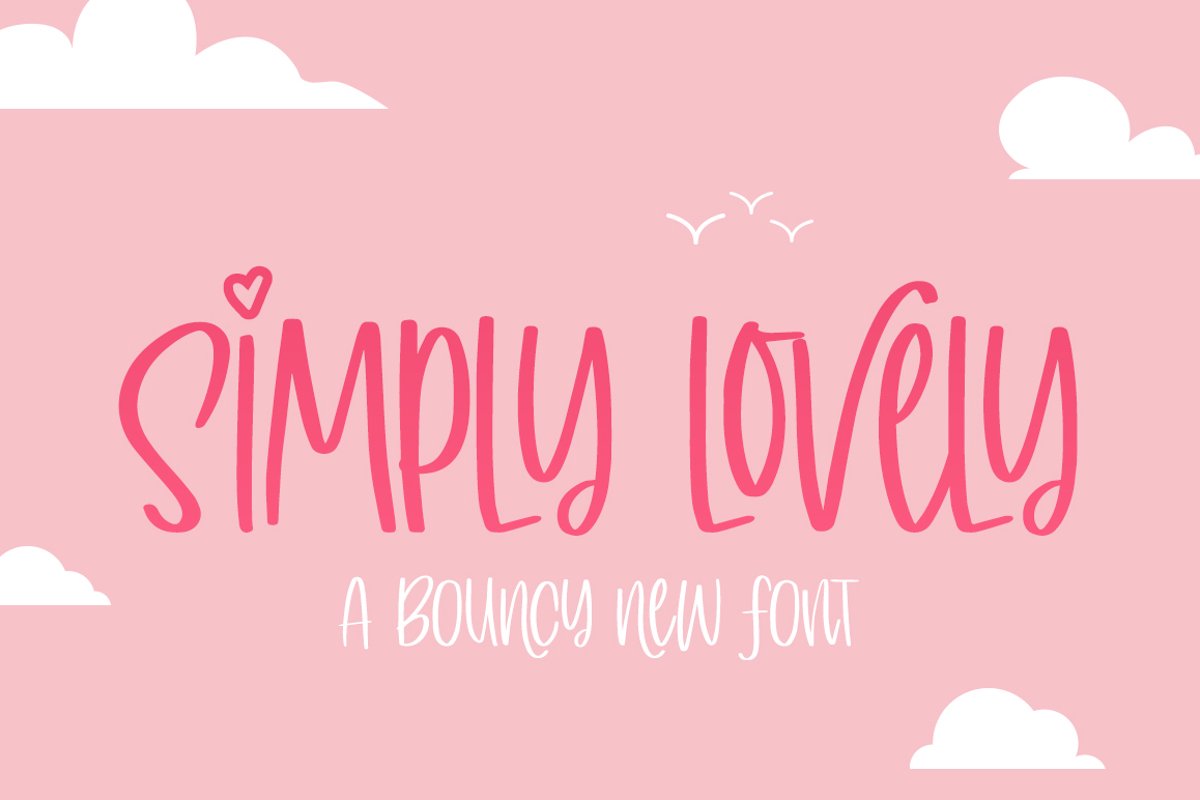
Simply Lovely is a brand new, handwritten font that is, well, simply lovely! It features fun, bouncy characters that help brig your designs to life! Ideal for quotes and logos, so get designing!